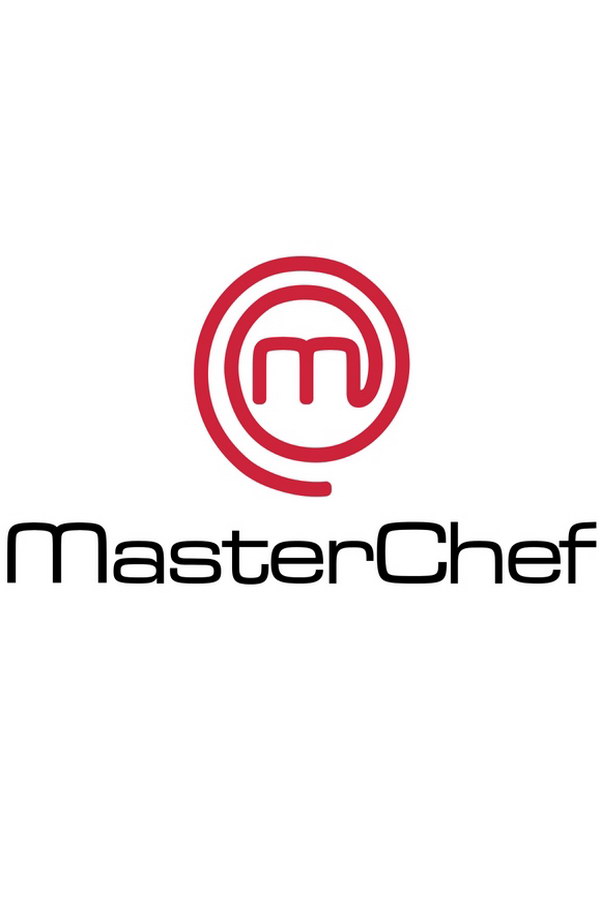
MasterChef Font
It is likely that the wordmark of the TV series MasterChef utilizes Eurostile Extended #2, a font created by Aldo Novarese in 1962. Eurostile Extended #2 is a modified version of Novarese's Microgramma font, which initially included only capital letters. Additional information regarding this font can be found here.